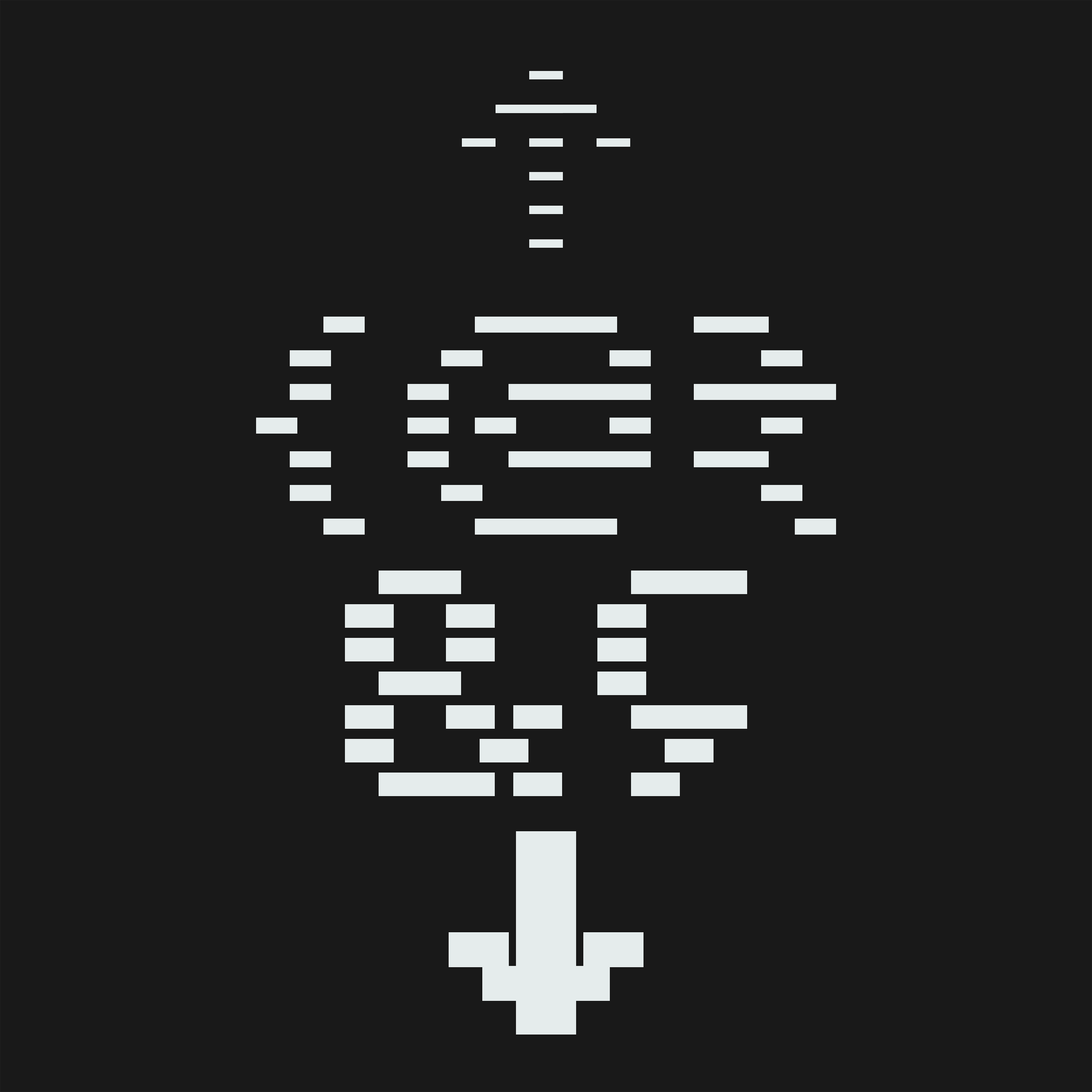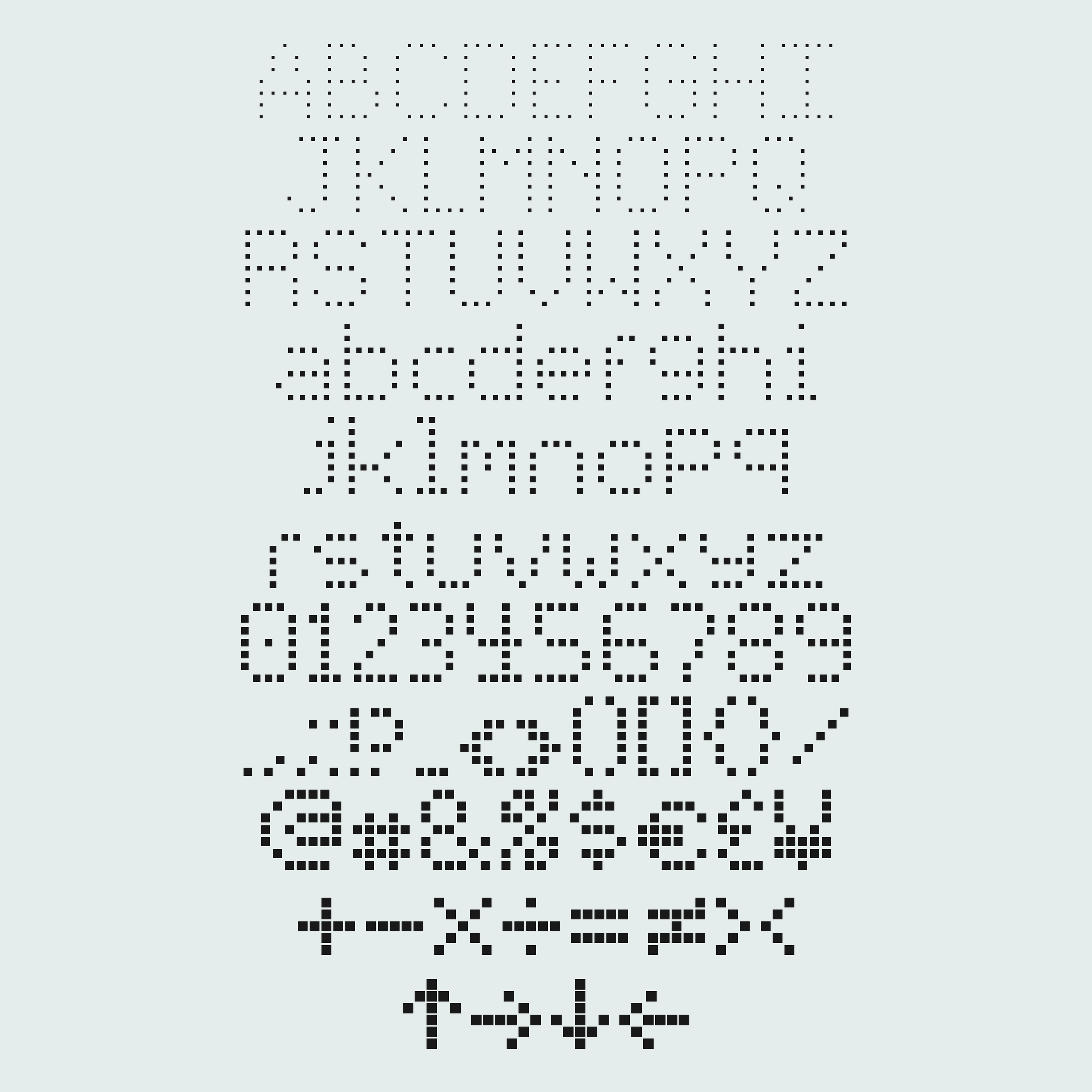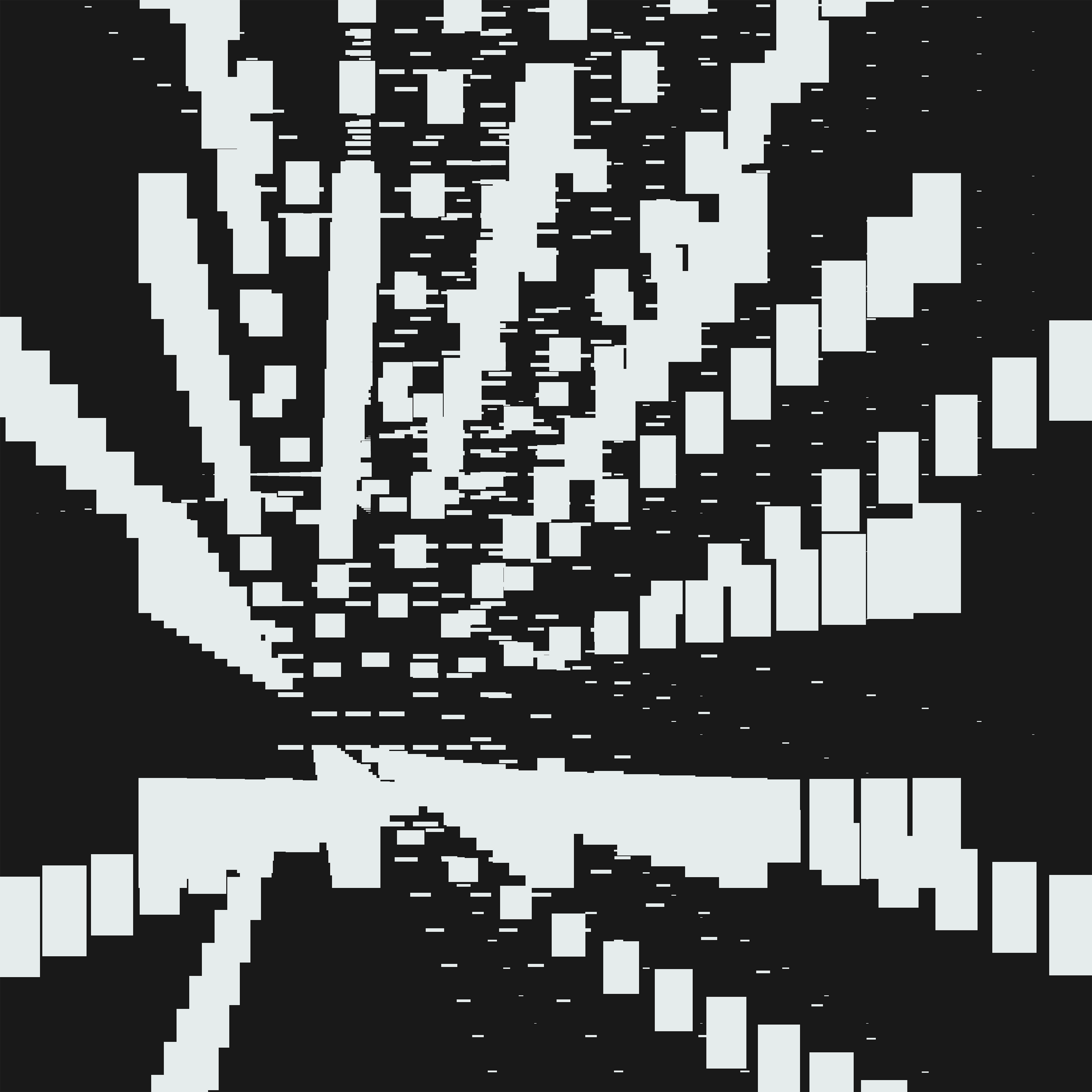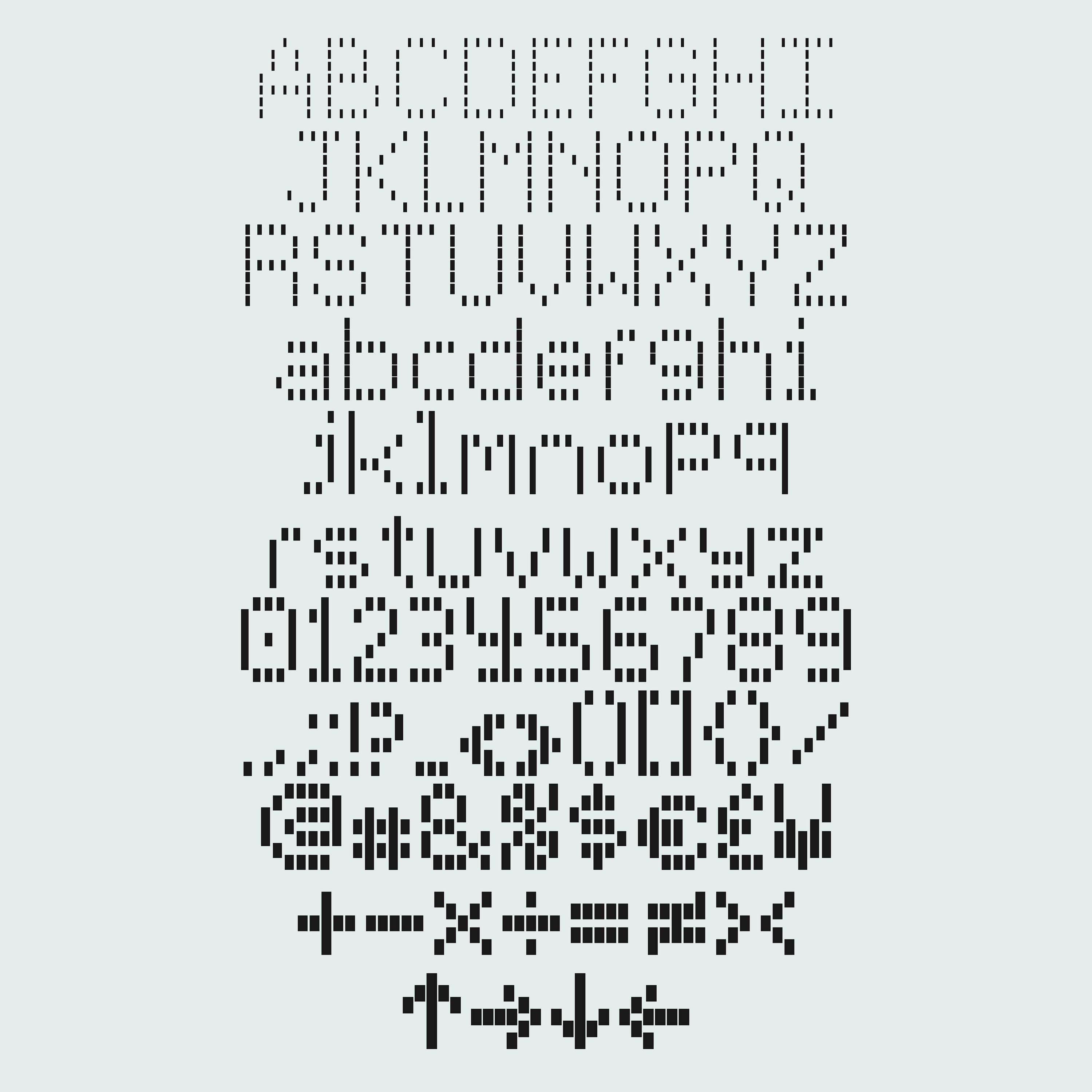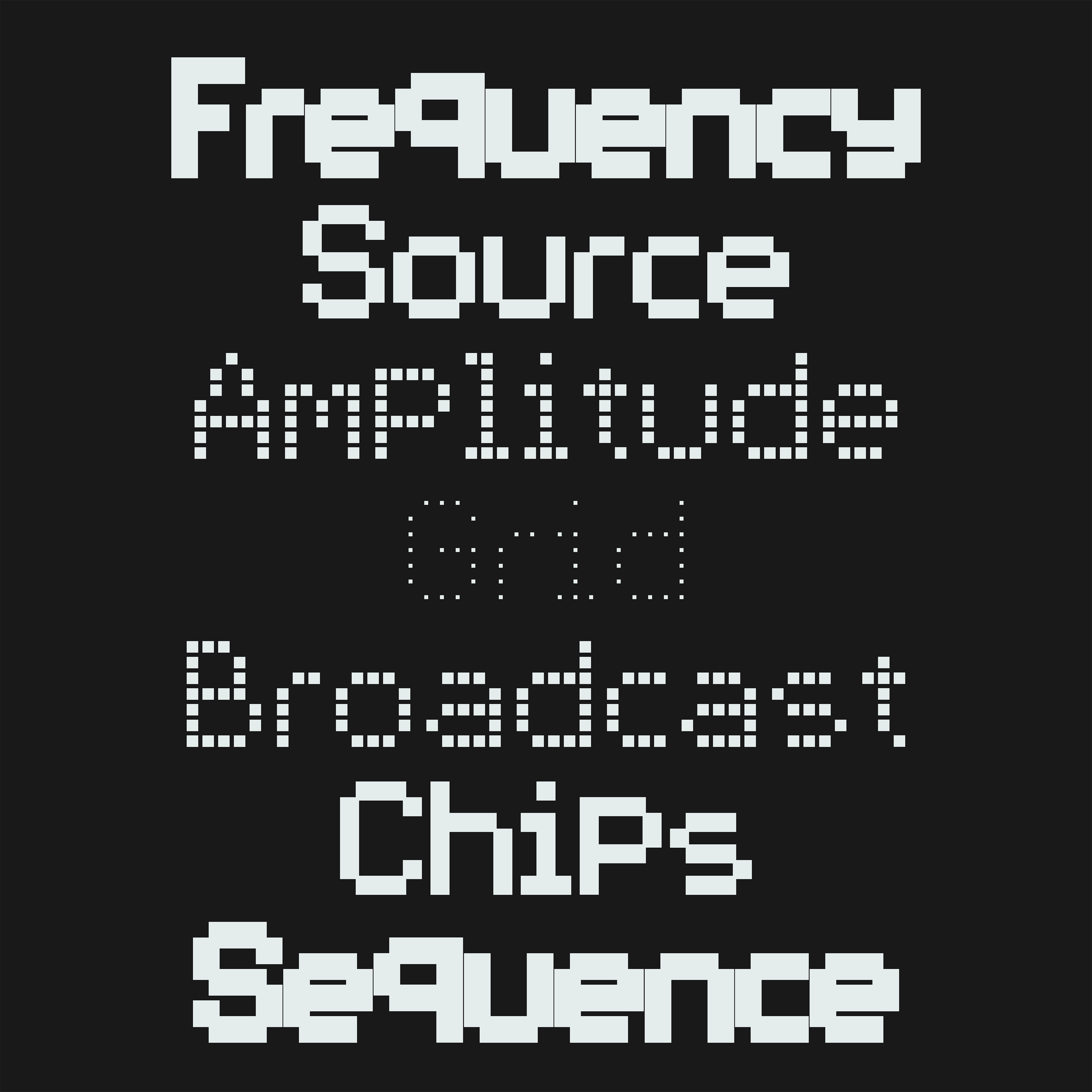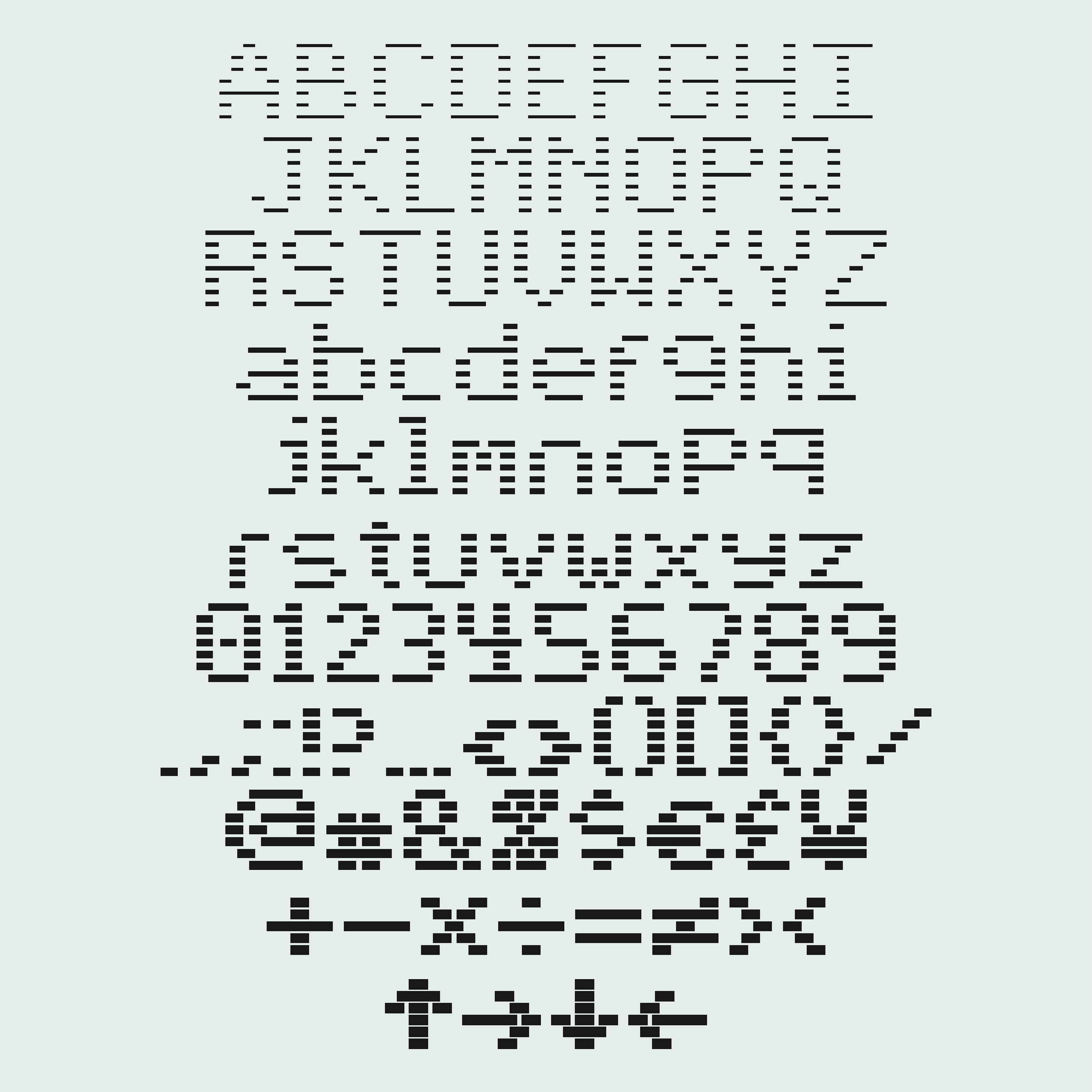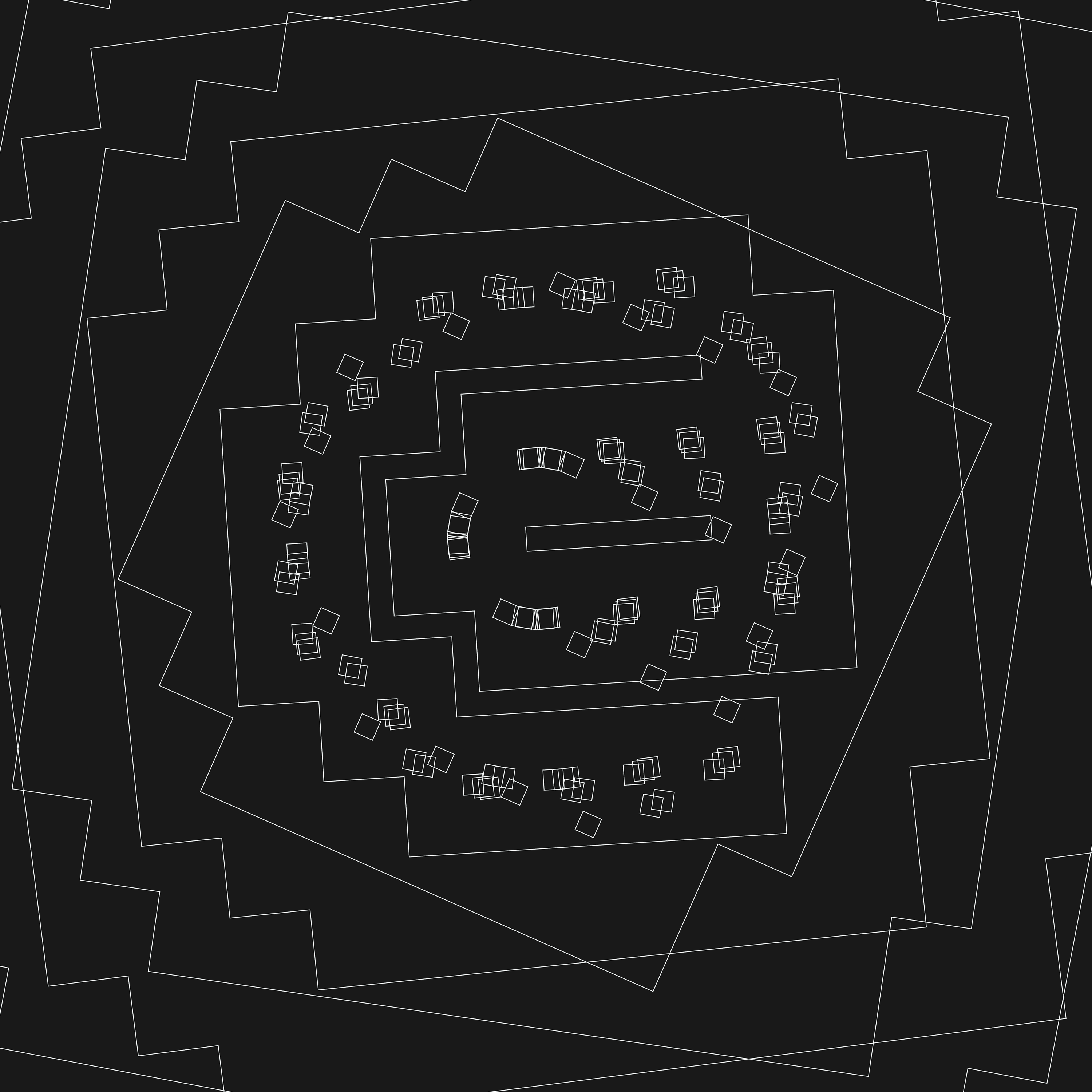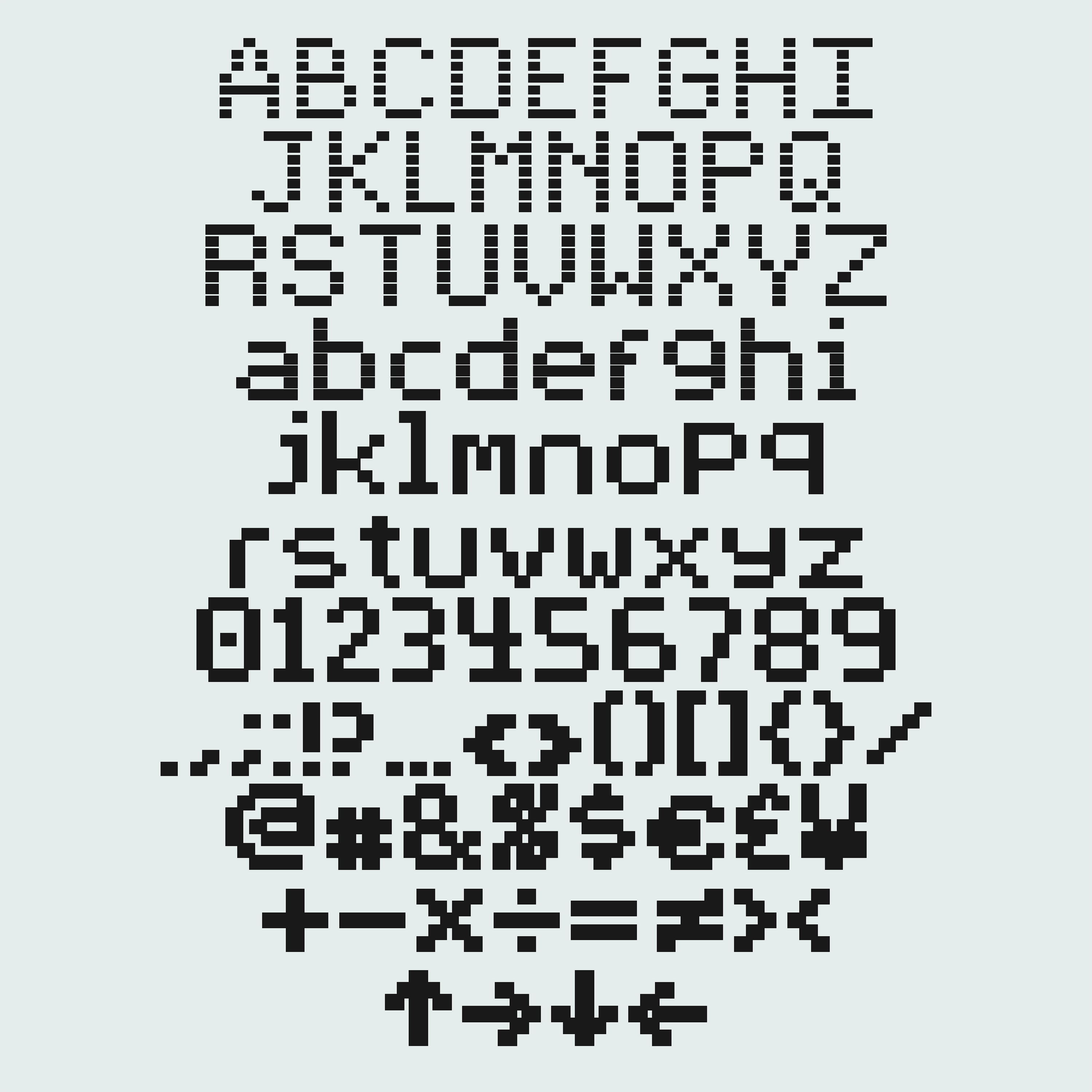
dclt Typeface
dclt is a variable pixel display typeface whose four styles, dot, chip, line and tape, range from compact square pixels to wide flat strokes and tall narrow bars. Designed to be misused: stack it, outline it, glitch it, stretch it into something unexpected.
Built for experimental and contemporary design, dclt moves between strict pixel grids and more expressive forms. Each style brings a different rhythm, from dense blocks to stretched lines, giving you flexibility across layouts.
Ideal for posters, album artwork, branding, motion design, and digital interfaces, the typeface thrives in projects that embrace experimentation, glitch aesthetics, and bold visual identity.
• 305 Glyphs
• 4 Styles (dot, chip, line, tape)
• Variable technology
• Lowercase
• Diacritics
• Alternates
• Symbols
• Currency
• Mathematics
• Arrows